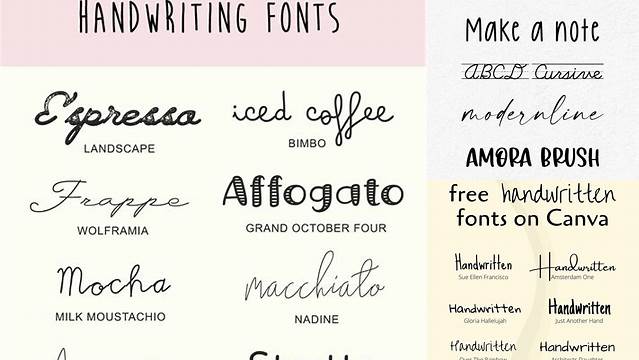
Cool Handwritten Fonts: Find Your Perfect 'A'!
Hey guys! Ever been on the hunt for that perfect handwritten font, especially one where the lowercase 'a' just sings? You're not alone! Finding the right font can make or break your project, whether it's a logo, invitation, or website design. This article dives deep into the world of handwritten fonts, focusing on those little 'a' details that make all the difference. We'll explore different styles, use cases, and even give you some tips on how to choose the best one for your needs. So, buckle up and get ready to discover your next favorite font!
1. Understanding the Allure of Handwritten Fonts
What's the big deal with handwritten fonts anyway? Well, they bring a personal, authentic touch that's hard to replicate with standard digital fonts. Handwritten fonts evoke feelings of warmth, creativity, and individuality. Imagine a wedding invitation using a delicate script – it feels much more special than Times New Roman, right? They're perfect for projects where you want to connect with your audience on a more emotional level. Businesses use them to appear more approachable, designers use them to add flair, and individuals use them to express their unique style. The key is to choose a font that matches the overall tone and message of your project. A playful, whimsical font might be great for a children's book, but not so much for a corporate report. The right handwritten font can transform your design from bland to brilliant, adding a layer of personality and charm that resonates with viewers.
2. Exploring Different Styles of Handwritten Fonts
The world of handwritten fonts is vast and varied. There's something for everyone, from elegant scripts to messy, playful scrawls. Let's break down some of the most popular styles: Script fonts are often characterized by flowing, connected letters, mimicking traditional calligraphy. These are great for formal invitations, logos, and anything that needs a touch of elegance. Sans-serif handwritten fonts offer a more modern, minimalist look. They're cleaner and more legible than script fonts, making them suitable for body text and designs that need a contemporary feel. Display fonts are designed to be eye-catching and attention-grabbing. They often feature unique letterforms and decorative elements, perfect for headlines, posters, and anything that needs to stand out. Cursive fonts mimic handwriting, with flowing strokes that connect letters. They are usually slanted and may use ligatures to connect letters in a more natural way. Calligraphy fonts are inspired by the art of calligraphy. They can be formal or informal, depending on the style, and are often used for invitations, certificates, and other formal documents. Each style evokes a different mood, so choose wisely!
3. The Significance of the Lowercase 'A' in Font Selection
Okay, let's get specific about that lowercase 'a'! It might seem like a small detail, but the shape of the 'a' can significantly impact the overall look and feel of a handwritten font. Is it a simple, rounded shape? Does it have a distinctive loop or tail? Is it slanted or upright? These subtle differences can drastically change the personality of the font. For example, a rounded 'a' might feel more playful and approachable, while a more angular 'a' could convey a sense of sophistication and modernity. When you're evaluating handwritten fonts, pay close attention to the 'a' and how it interacts with the other letters. Does it flow seamlessly with the rest of the word? Does it complement the overall style of the font? A well-designed 'a' can elevate a font from good to great, adding that extra touch of character and charm that makes it truly special. So, don't underestimate the power of this little letter!
4. Script Fonts with Beautiful Lowercase 'A's
If you're looking for elegance and sophistication, script handwritten fonts are the way to go. And when it comes to the lowercase 'a,' many script fonts offer stunning variations. Some feature delicate loops and swirls, while others have a more simplified, modern shape. Popular options include calligraphy-inspired fonts with traditional 'a' formations, as well as contemporary scripts with unique and eye-catching 'a' designs. These fonts are perfect for wedding invitations, logos for luxury brands, and anything that needs a touch of class. The key is to find a script font where the 'a' complements the overall flow and rhythm of the text. Look for fonts with consistent letter spacing and smooth transitions between letters. A well-designed script font with a beautiful lowercase 'a' can add a touch of timeless elegance to any project.
5. Sans-Serif Handwritten Fonts and Their Unique 'A' Designs
For a more modern and minimalist look, consider sans-serif handwritten fonts. These fonts often feature a simpler, more geometric 'a' design, which can be a great alternative to traditional script fonts. Some sans-serif fonts have a slightly rounded 'a,' giving it a friendly and approachable feel, while others have a more angular 'a,' conveying a sense of sophistication and modernity. These fonts are perfect for website design, branding materials, and anything that needs a clean and contemporary look. When choosing a sans-serif handwritten font, pay attention to the overall legibility and readability. Make sure the 'a' is clear and distinct, even at smaller sizes. A well-designed sans-serif font with a unique 'a' design can add a touch of personality to any modern project.
6. Display Fonts: Making a Statement with the Letter 'A'
Need to grab attention? Display handwritten fonts are your secret weapon! These fonts are designed to be bold, eye-catching, and memorable. And when it comes to the lowercase 'a,' display fonts often push the boundaries of creativity. You might find 'a's with exaggerated loops, unusual angles, or even decorative elements. These fonts are perfect for headlines, posters, and anything that needs to make a statement. However, it's important to use display fonts sparingly, as they can be overwhelming if overused. Choose a display handwritten font that complements the overall message and tone of your project. And remember to consider legibility – while a unique 'a' can be eye-catching, it shouldn't sacrifice readability. A well-chosen display font with a memorable 'a' can make your design stand out from the crowd.
7. Cursive Fonts and the Flowing 'A'
Cursive fonts mimic handwriting, with flowing strokes that connect letters, which is why they're usually slanted and use ligatures to connect letters in a more natural way. The lowercase 'a' in cursive fonts is naturally connected to the adjacent letters, making the letter transition smooth and elegant. Look for those fonts that really add character to any design.
8. Calligraphy Fonts: An Artistic 'A'
Calligraphy fonts are inspired by the art of calligraphy. They can be formal or informal, depending on the style, and are often used for invitations, certificates, and other formal documents. In calligraphy, each letter is crafted with intention and precision. So, the 'a' should really show its beautiful uniqueness.
9. Matching Fonts with Different 'A' Styles
When using different fonts with different “A” styles, find those that balance each other for optimal design!
10. Free vs. Premium Handwritten Fonts
Weigh the quality and rights when deciding between free and premium handwritten fonts.
So, there you have it! A comprehensive guide to finding the perfect handwritten font, with a special focus on that all-important lowercase 'a.' Remember to consider the overall style of your project, the message you want to convey, and the unique characteristics of each font. With a little bit of research and experimentation, you'll be sure to find the perfect font to bring your creative vision to life. Happy designing!